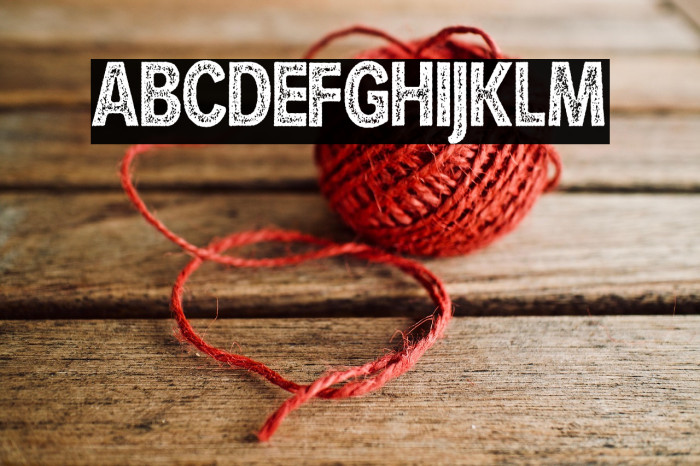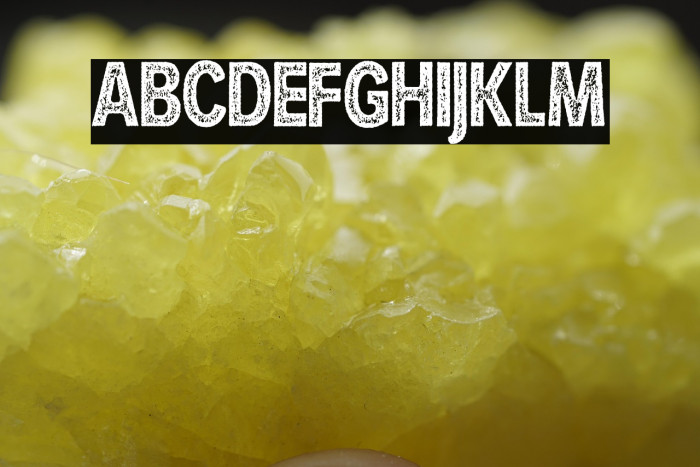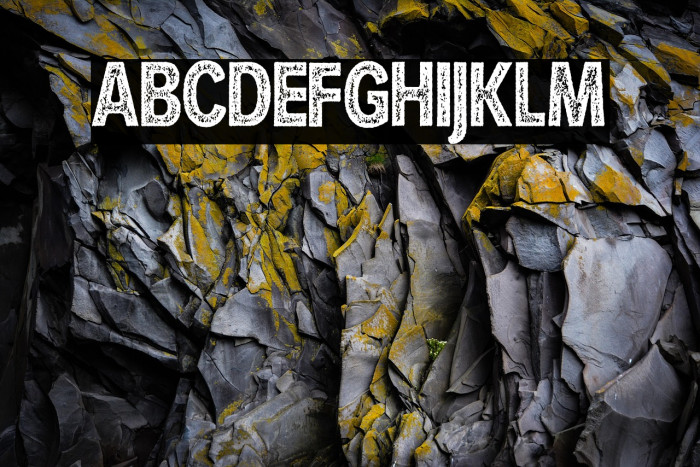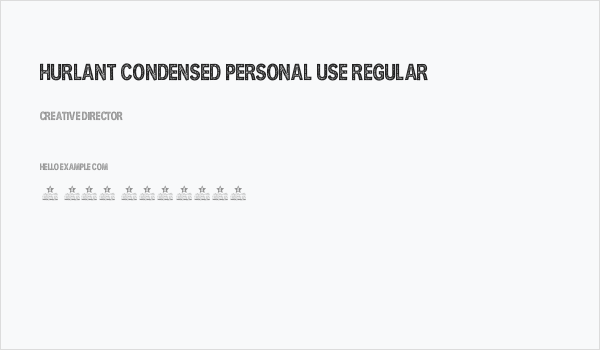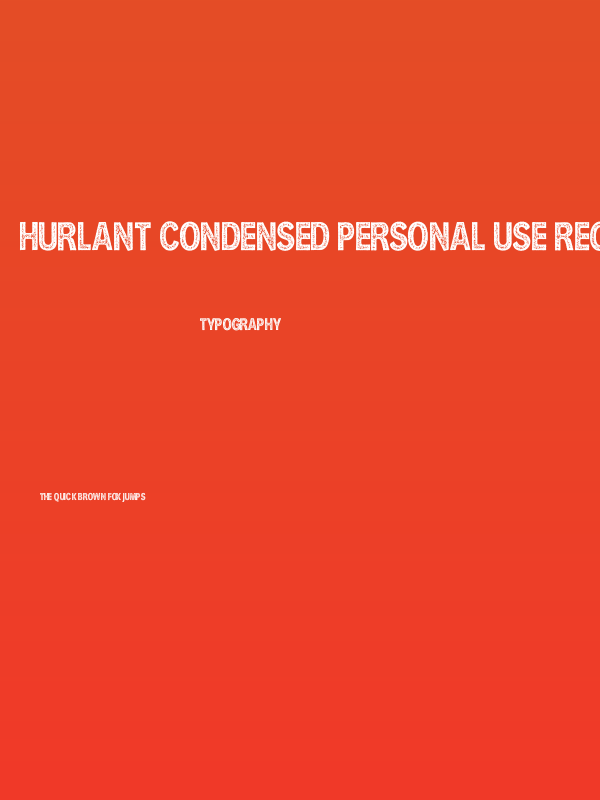
HURLANT CONDENSED PERSONAL USE Regular Font
HURLANT CONDENSED PERSONAL USE Regular Description
This font features a bold, condensed style with a distressed texture, giving it a rugged and vintage appearance. The uppercase letters are uniform in height, with a consistent width that enhances readability while maintaining a compact form. The distressed effect adds character, making it suitable for projects that require a touch of nostalgia or a gritty aesthetic. The font's boldness ensures it stands out, making it ideal for attention-grabbing headlines or titles. Its condensed nature allows for efficient use of space, making it versatile for various design needs.
| Proposed Projects | Ideal for vintage posters, album covers, branding, and headlines that require a bold statement. |